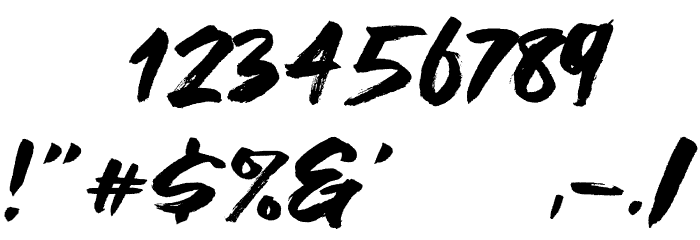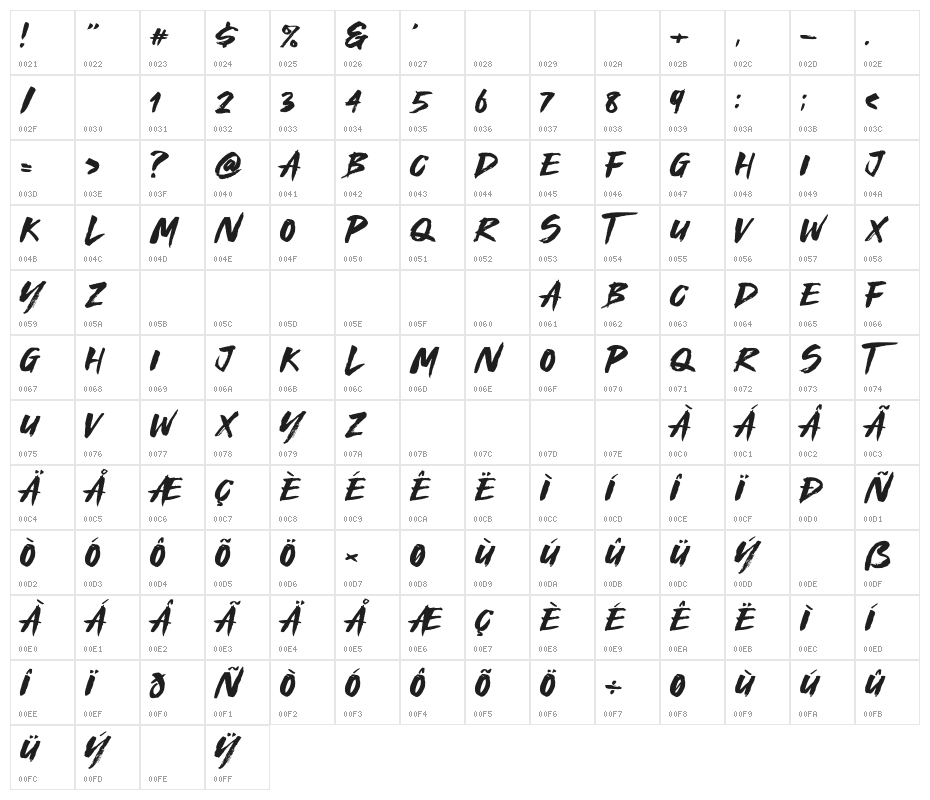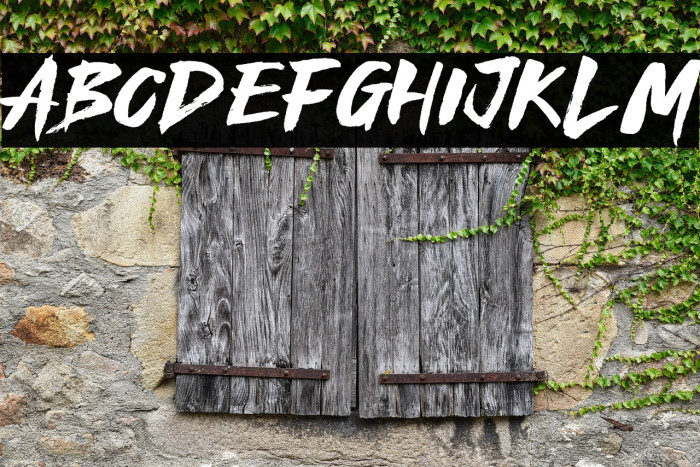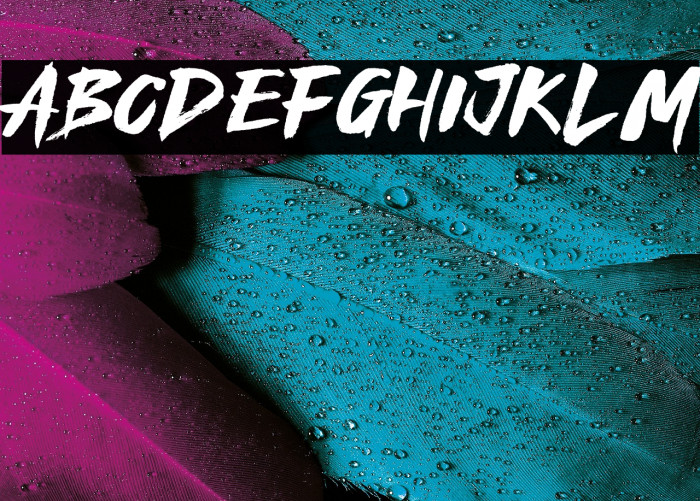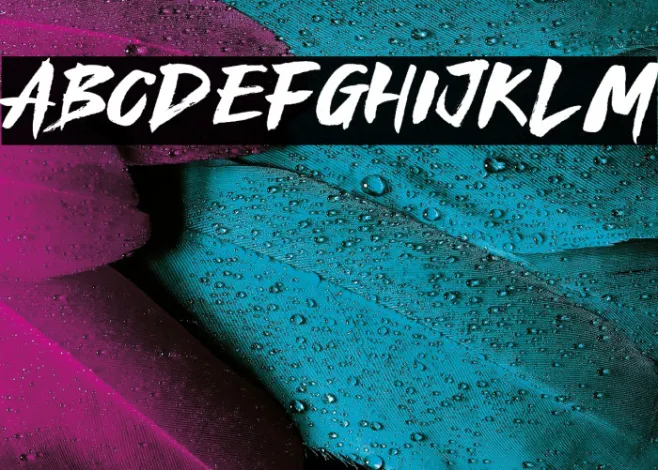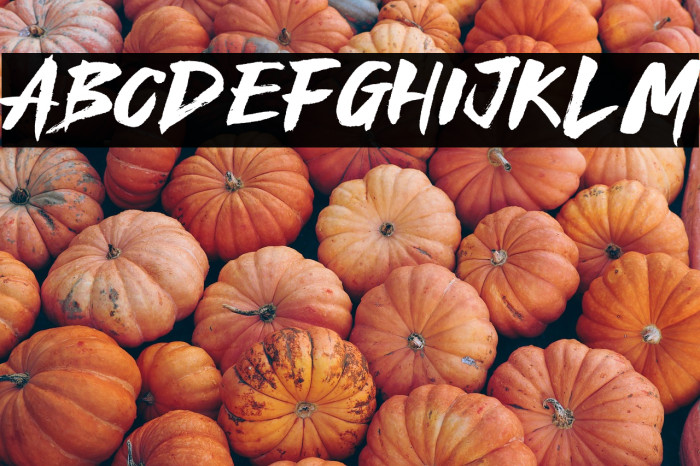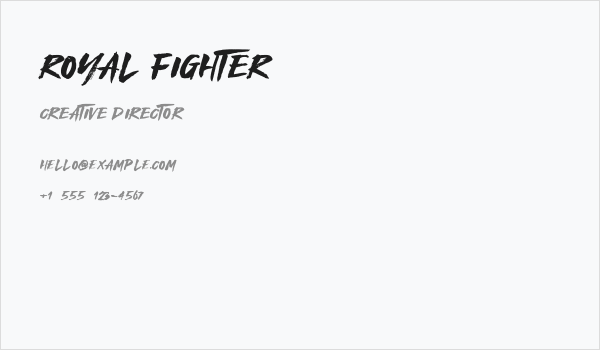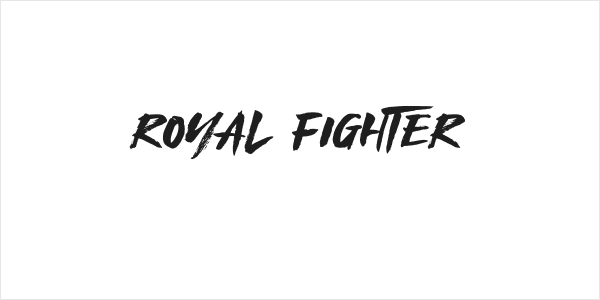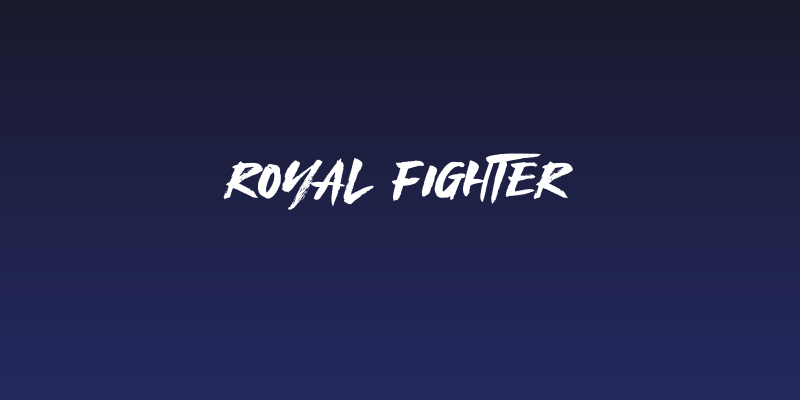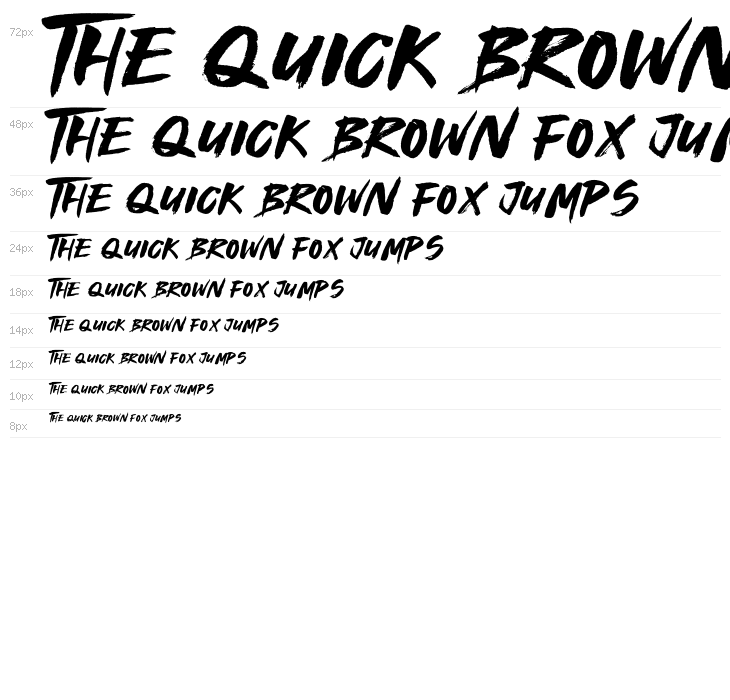
Royal Fighter Font
Royal Fighter Description
This font features a bold, brushstroke style that exudes energy and dynamism. The characters are crafted with a rough, textured appearance, giving them a hand-painted look. The uppercase and lowercase letters maintain a consistent style, with sharp angles and fluid curves that suggest movement. The numbers and special characters are equally expressive, maintaining the same bold and artistic flair. This font is ideal for projects that require a strong, impactful visual presence.
| Proposed Projects | Ideal for posters, branding, album covers, and any project needing a bold artistic touch. |